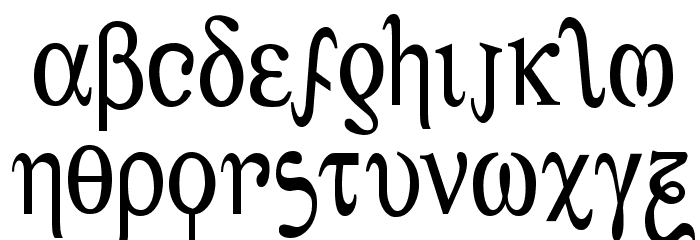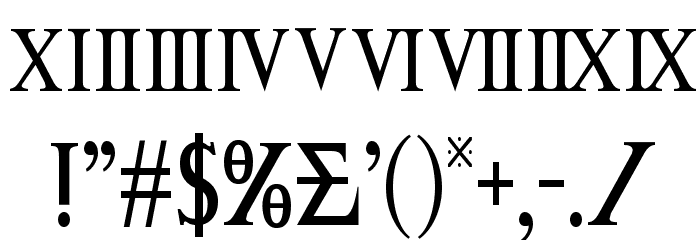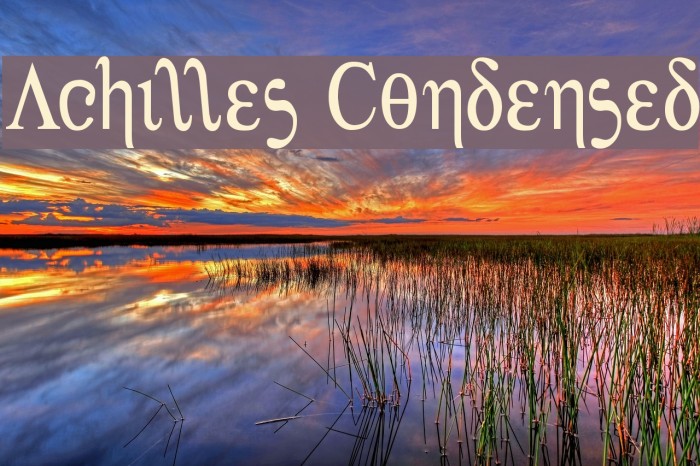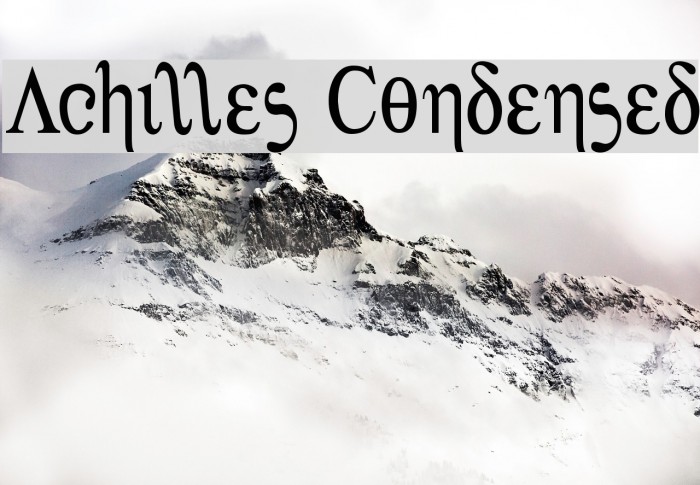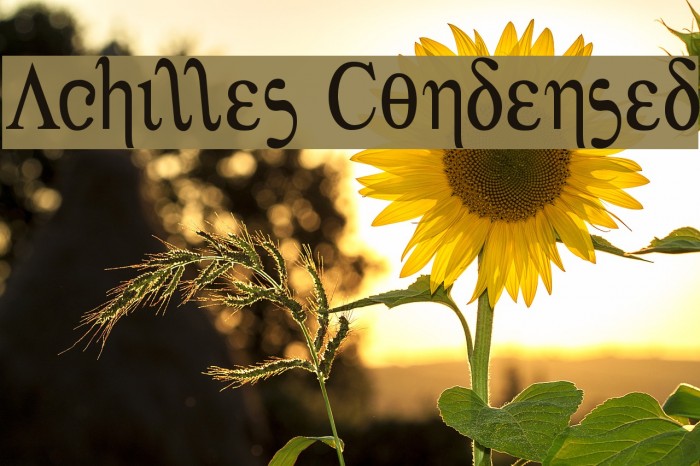
Achilles Condensed Font
This font features a distinct blend of classical and modern elements, characterized by its condensed letterforms and sharp serifs. The uppercase letters exhibit a strong presence with their tall, narrow shapes, while the lowercase letters maintain a consistent flow with subtle curves. The numerals are styled to match the overall aesthetic, providing a cohesive look. Special characters are elegantly integrated, enhancing the font's versatility. The design is both sophisticated and readable, making it suitable for a variety of applications.
A condensed serif font with a classical yet modern aesthetic.
- Proposed Projects: Ideal for editorial design, book covers, branding, and sophisticated advertising campaigns.
- Overall Style: Classic